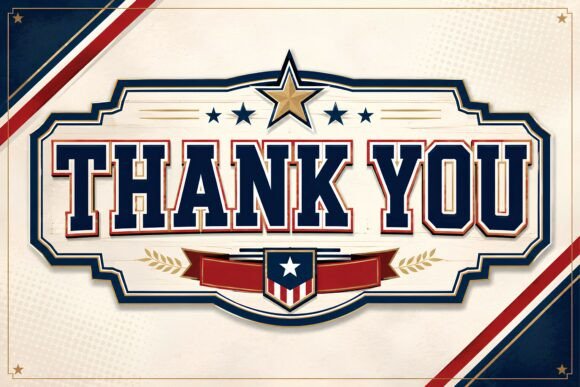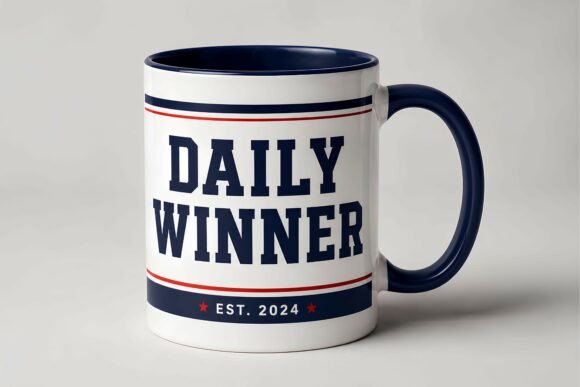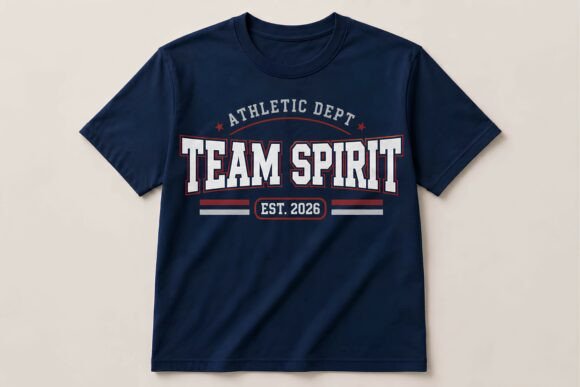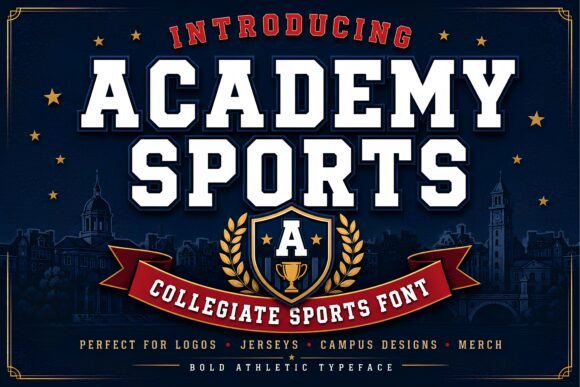
Introducing Academy Sports Font: The Ultimate Choice for Sports Branding and Design
Are you looking for a font that embodies the spirit of athleticism and competition? Look no further than Academy Sports Font, a strong and bold varsity display font inspired by classic college sports typography. With its blocky letterforms, sharp edges, and athletic feel, this font is perfect for creating powerful and professional designs that demand attention.
The Inspiration Behind Academy Sports Font
Academy Sports Font draws inspiration from the classic typography of college sports teams, evoking the nostalgia and tradition of varsity sports. The font’s design is characterized by its bold, blocky letterforms, sharp edges, and athletic feel, making it an ideal choice for sports branding, university-style logos, team shirts, jersey numbers, school events, club merchandise, posters, mugs, stickers, and more.
Key Features of Academy Sports Font
• Strong and Bold Design: Academy Sports Font features a strong and bold design that is perfect for creating eye-catching designs.
• Blocky Letterforms: The font’s blocky letterforms give it a unique and athletic feel.
• Sharp Edges: The sharp edges of the font add to its athletic and dynamic feel.
• Clean Collegiate Look: The font’s clean collegiate look makes every design feel bold, confident, and energetic.
Uses of Academy Sports Font
Academy Sports Font is an incredibly versatile font that can be used for a wide range of design projects, including:
• Sports Branding: Create powerful and professional logos for sports teams, gyms, and athletic brands.
• University-Style Logos: Design authentic and nostalgic logos for universities, colleges, and schools.
• Team Shirts and Jerseys: Create eye-catching team shirts and jerseys with bold and confident typography.
• School Events and Club Merchandise: Design posters, flyers, and merchandise for school events and clubs.
• Posters and Print Materials: Create bold and attention-grabbing posters, mugs, stickers, and other print materials.
Why Choose Academy Sports Font?
Academy Sports Font is the perfect choice for designers and crafters who want to add a classic athletic touch to their designs. Here are just a few reasons why:
• Unique and Athletic Feel: The font’s unique and athletic feel sets it apart from other fonts.
• High-Quality Design: The font is designed to high standards, ensuring crisp and clear typography.
• Easily Readable: The font is easily readable, even at small sizes.
• Versatile: The font can be used for a wide range of design projects.
Academy Sports Font is a powerful and professional font that is perfect for designers and crafters who want to add a classic athletic touch to their designs. With its strong and bold design, blocky letterforms, sharp edges, and athletic feel, this font is ideal for sports branding, university-style logos, team shirts, jersey numbers, school events, club merchandise, posters, mugs, stickers, and more. So why wait? Download Academy Sports Font today and start creating bold and confident designs that demand attention.